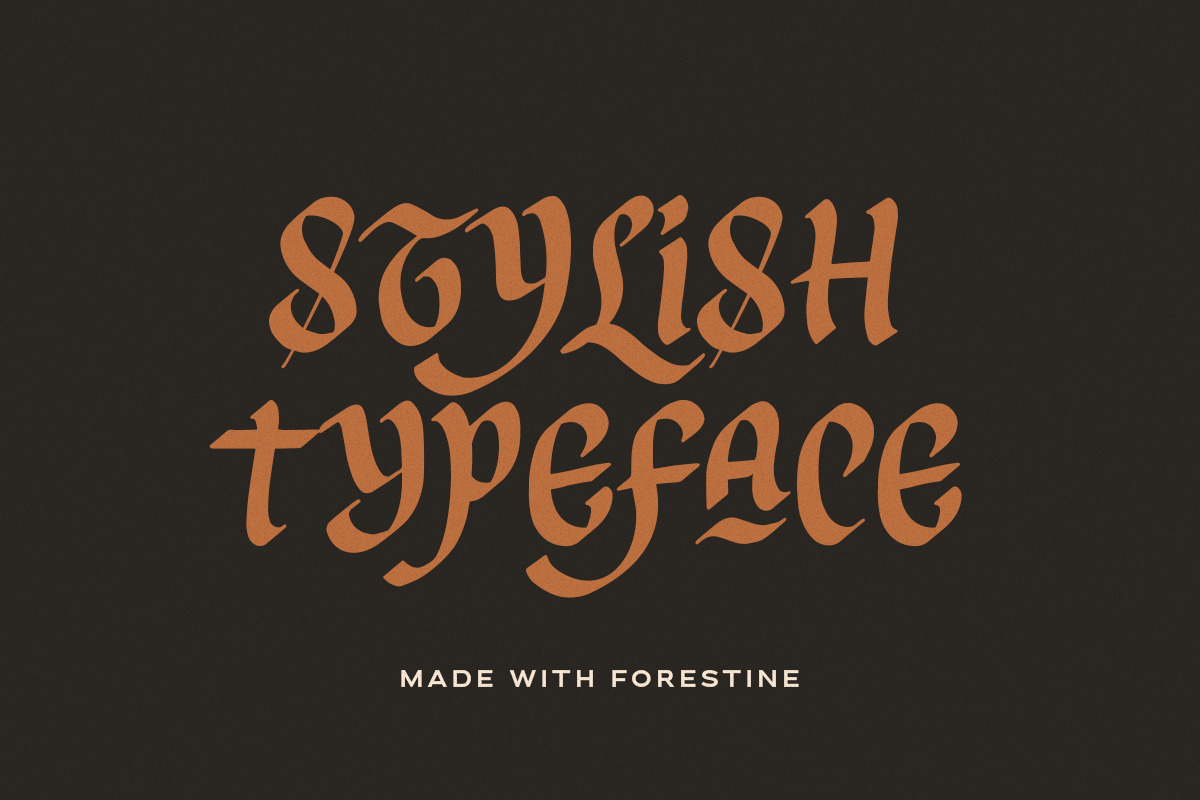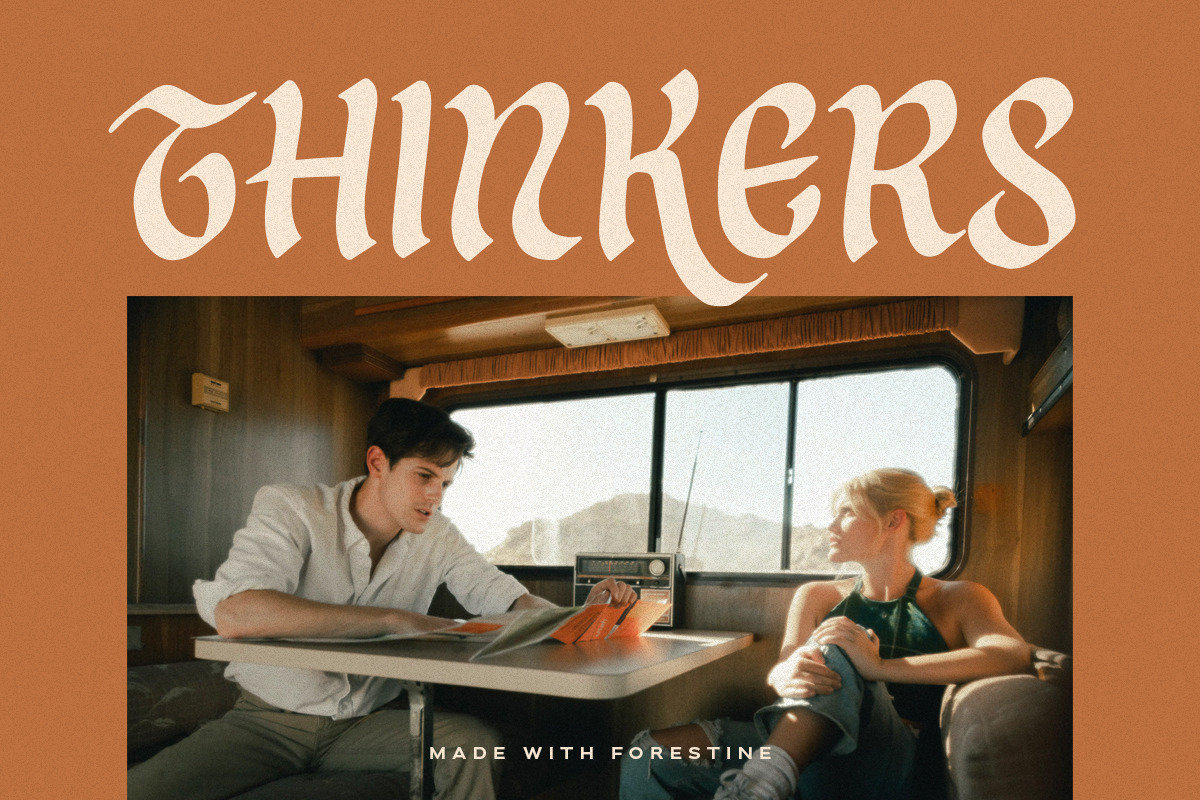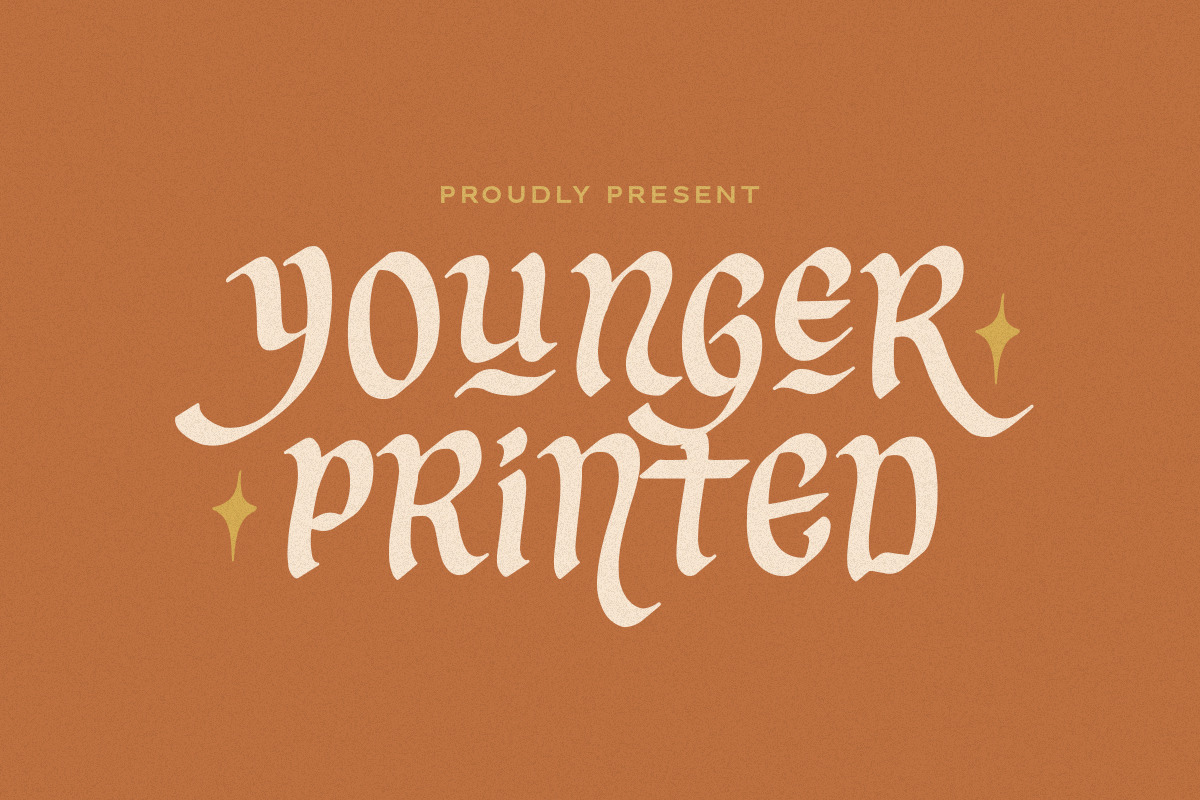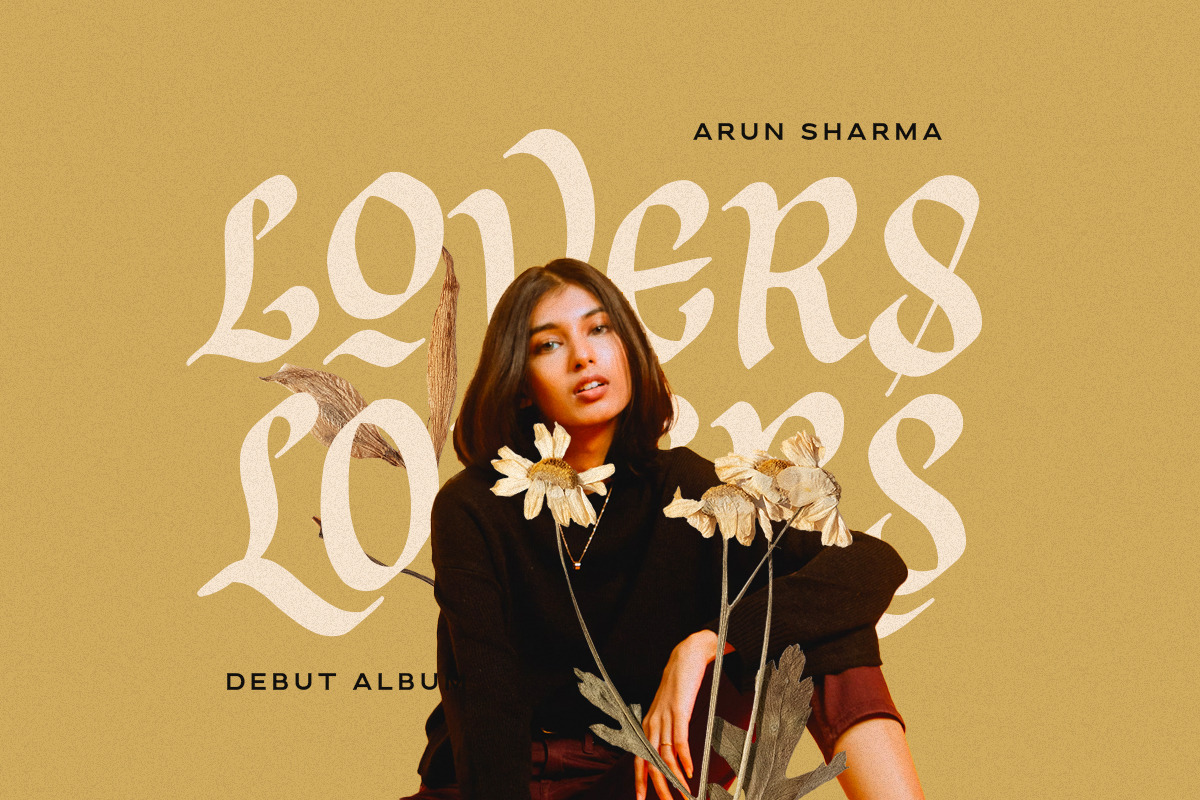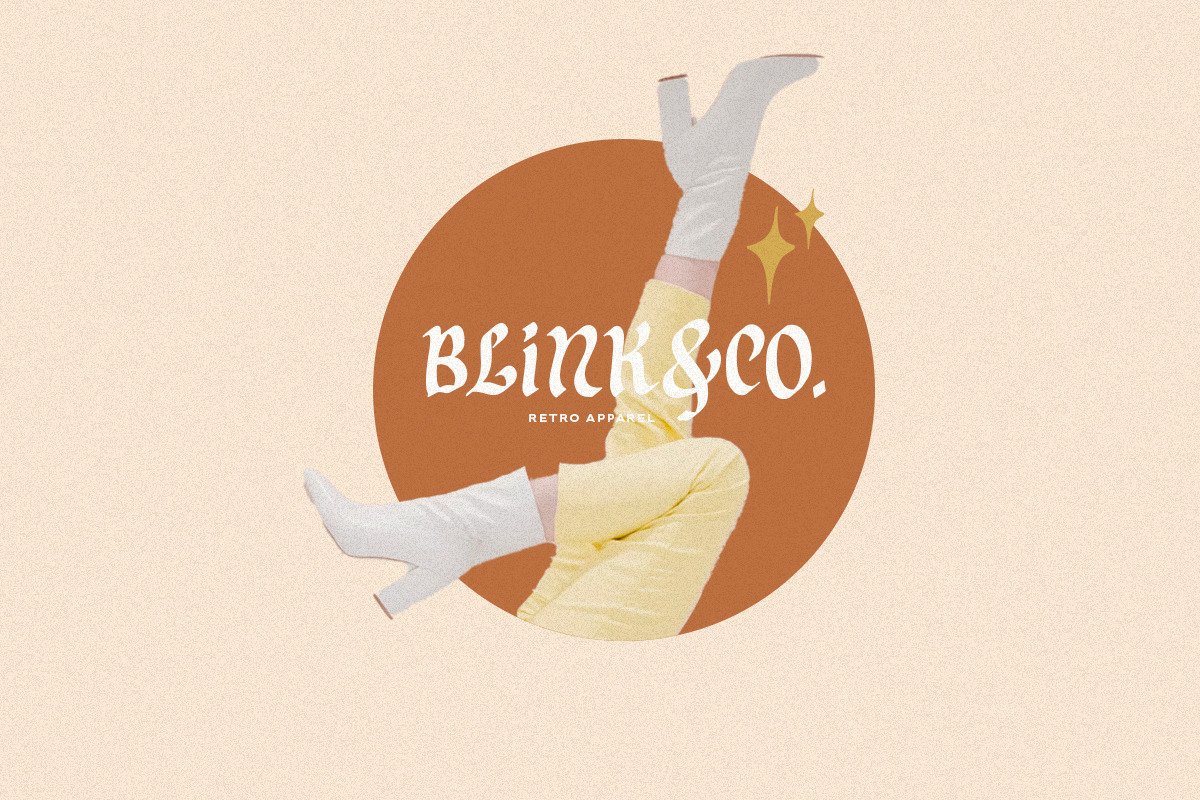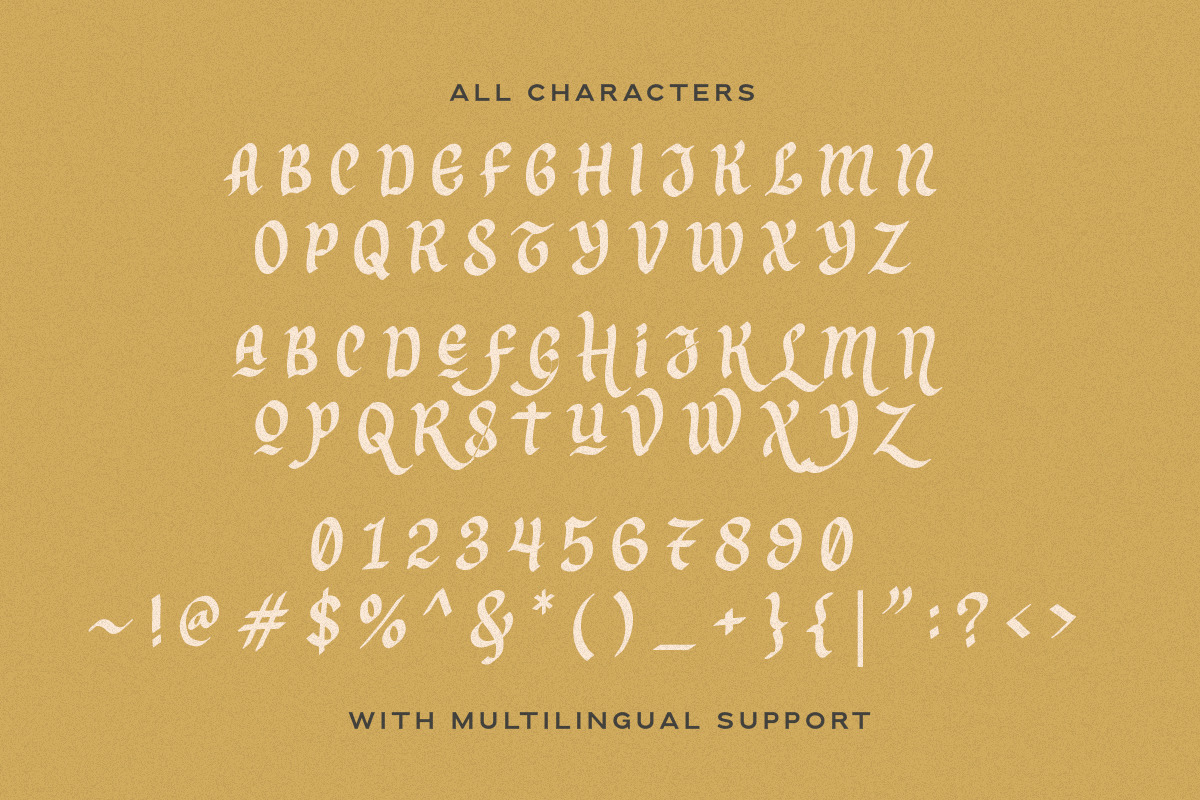
Forestine - Stylish Blackletter
Introducing, Forestine, a stylish blackletter font!
Forestine is a modern and stylish blackletter typeface that will make your project more stunning and unique. It comes with handwritten and rough feel, will make your design more humanist. You can use the uppercase and lowercase together for more unique touch! Also comes with multilingual support and PUA encoded! This font also including customized star!